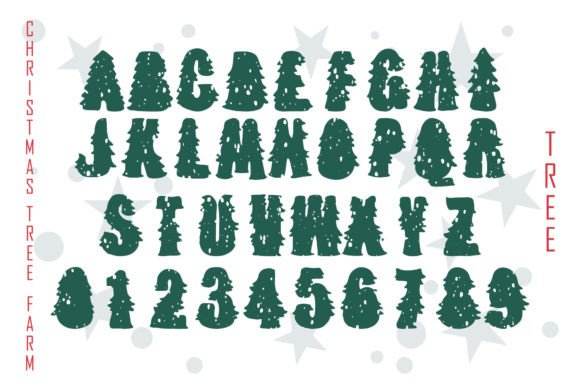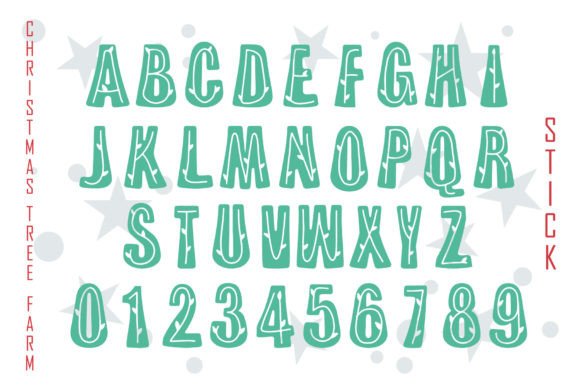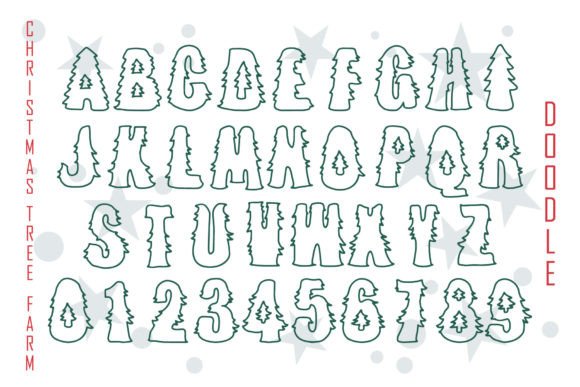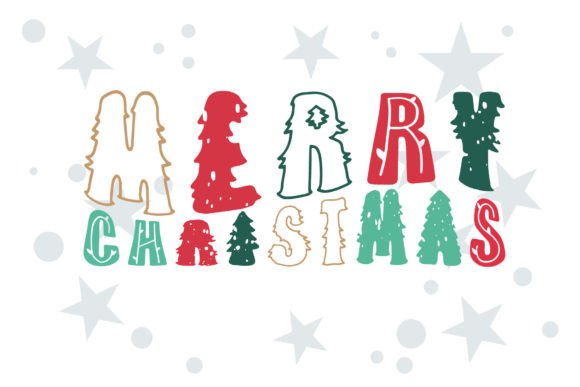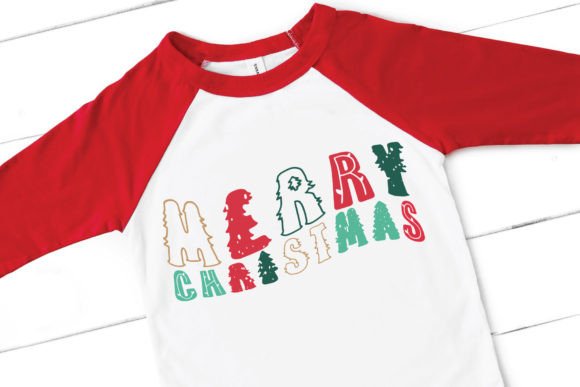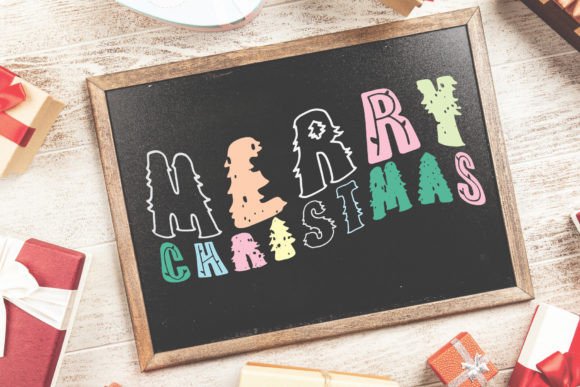
Introducing Christmas Tree Farm Trio Font: A Festive and Unique Decorative Font for Your Holiday Designs
Are you looking for a font that will add a touch of magic to your holiday designs? Look no further than the Christmas Tree Farm Trio Font! This adorable and one-of-a-kind decorative font is perfect for creating festive and eye-catching designs, especially those related to Christmas. In this article, we’ll dive into the features and benefits of the Christmas Tree Farm Trio Font, and explore how you can use it to elevate your holiday designs.
What is Christmas Tree Farm Trio Font?
Christmas Tree Farm Trio Font is a carefully crafted decorative font that features a unique and playful design. The font is inspired by the whimsical and festive atmosphere of a Christmas tree farm, and its characters are designed to evoke the feeling of a snowy winter wonderland. The font is perfect for adding a touch of personality and charm to your holiday designs, from Christmas cards and invitations to social media graphics and website headers.
Key Features of Christmas Tree Farm Trio Font
So, what makes Christmas Tree Farm Trio Font so special? Here are some of its key features:
- Unique and Playful Design: The font features a one-of-a-kind design that’s sure to stand out from the crowd. Its playful and whimsical characters are perfect for adding a touch of personality to your designs.
- Decorative and Festive: The font is designed to evoke the feeling of a festive holiday season. Its characters are adorned with snowflakes, holly, and other winter-themed decorations that will add a touch of magic to your designs.
- Highly Versatile: Christmas Tree Farm Trio Font can be used for a wide range of design ideas, from Christmas cards and invitations to social media graphics and website headers.
- Easily Customizable: The font is highly customizable, allowing you to adjust its size, color, and style to fit your design needs.
How to Use Christmas Tree Farm Trio Font in Your Designs
Now that we’ve explored the features and benefits of Christmas Tree Farm Trio Font, let’s dive into some ideas for using it in your designs. Here are a few suggestions to get you started:
- Christmas Cards and Invitations: Use Christmas Tree Farm Trio Font to create festive and eye-catching Christmas cards and invitations. You can add a personal touch by customizing the font with your own message or name.
- Social Media Graphics: Add a touch of holiday cheer to your social media graphics with Christmas Tree Farm Trio Font. You can use the font to create festive headers, captions, or even entire graphics.
- Website Headers and Banners: Use Christmas Tree Farm Trio Font to add a touch of personality to your website headers and banners. The font is perfect for creating festive and eye-catching headers that will grab your visitors’ attention.
- Crafting and DIY Projects: Christmas Tree Farm Trio Font is also perfect for crafting and DIY projects, such as making holiday decorations, gift tags, or even personalized gifts.
Tips and Tricks for Getting the Most Out of Christmas Tree Farm Trio Font
Here are a few tips and tricks for getting the most out of Christmas Tree Farm Trio Font:
- Experiment with Different Colors: Don’t be afraid to experiment with different colors and combinations to find the perfect look for your design. Christmas Tree Farm Trio Font looks great in bold and bright colors, but you can also try using more muted tones for a more subtle look.
- Mix and Match with Other Fonts: Christmas Tree Farm Trio Font is highly versatile and can be paired with other fonts to create a unique and interesting look. Try mixing and matching it with other festive fonts to create a one-of-a-kind design.
- Use it in Combination with Images: Christmas Tree Farm Trio Font looks great in combination with images, especially those related to the holiday season. Try using it to add a touch of personality to your holiday photos or graphics.
| Font Name | Christmas Tree Farm Trio Font |
| Author | KtwoP |
In conclusion, Christmas Tree Farm Trio Font is a unique and festive decorative font that’s perfect for adding a touch of personality to your holiday designs. Its playful and whimsical design, combined with its high versatility and customizability, make it a must-have for designers and crafters looking to create eye-catching and festive designs. Whether you’re creating Christmas cards and invitations, social media graphics, or website headers, Christmas Tree Farm Trio Font is sure to bring a touch of holiday magic to your designs.